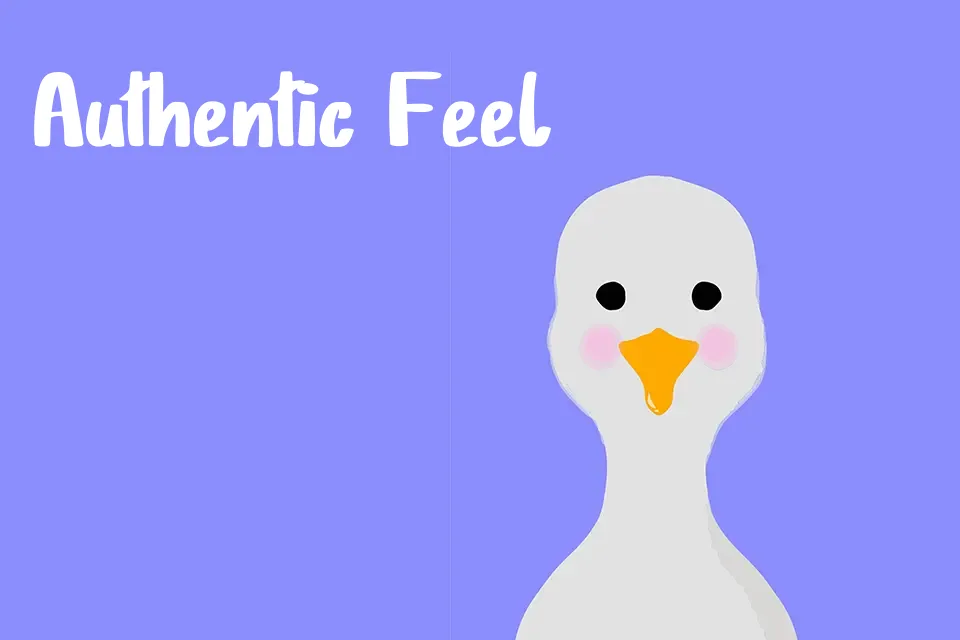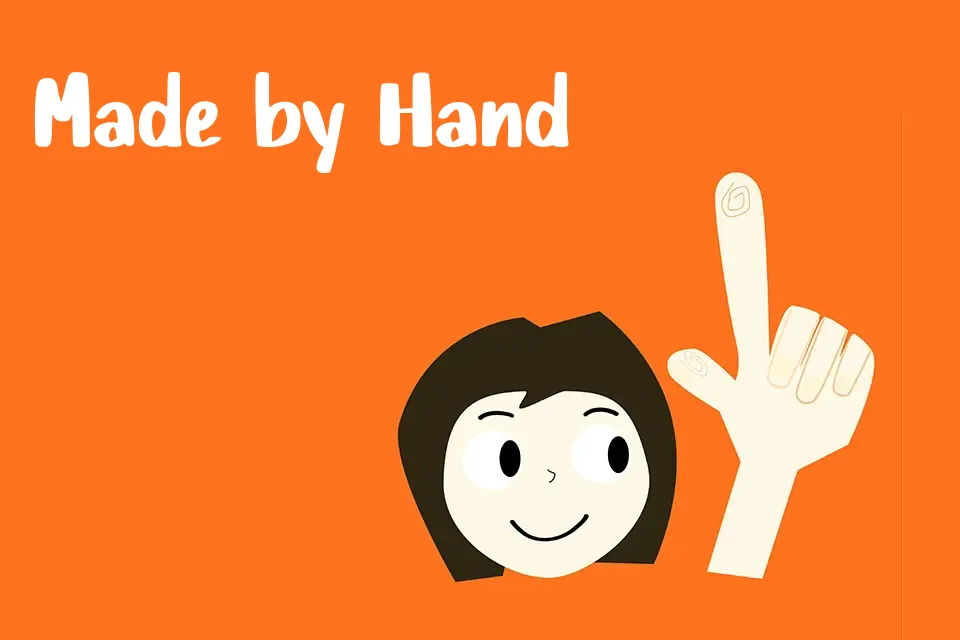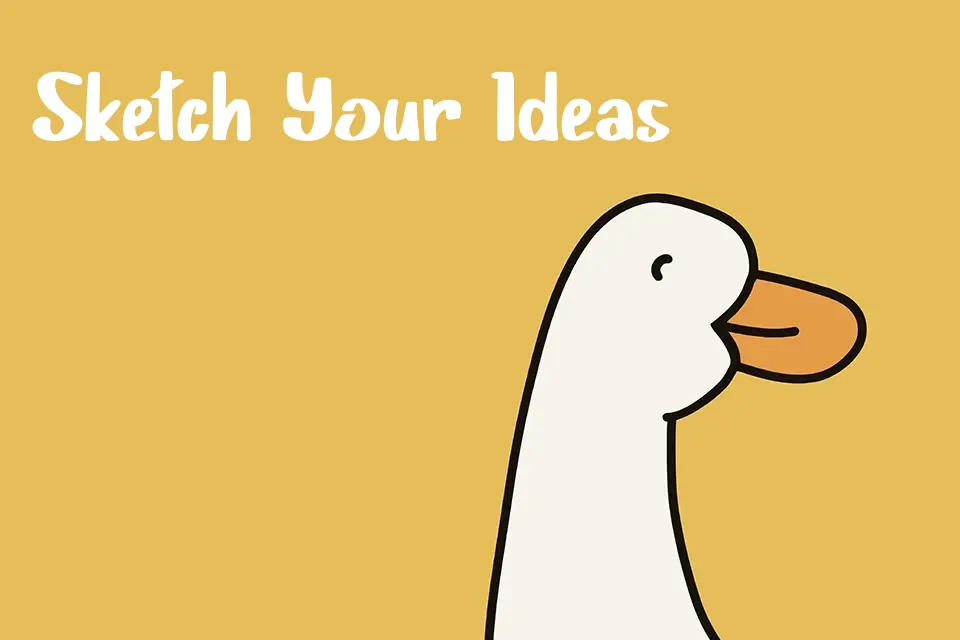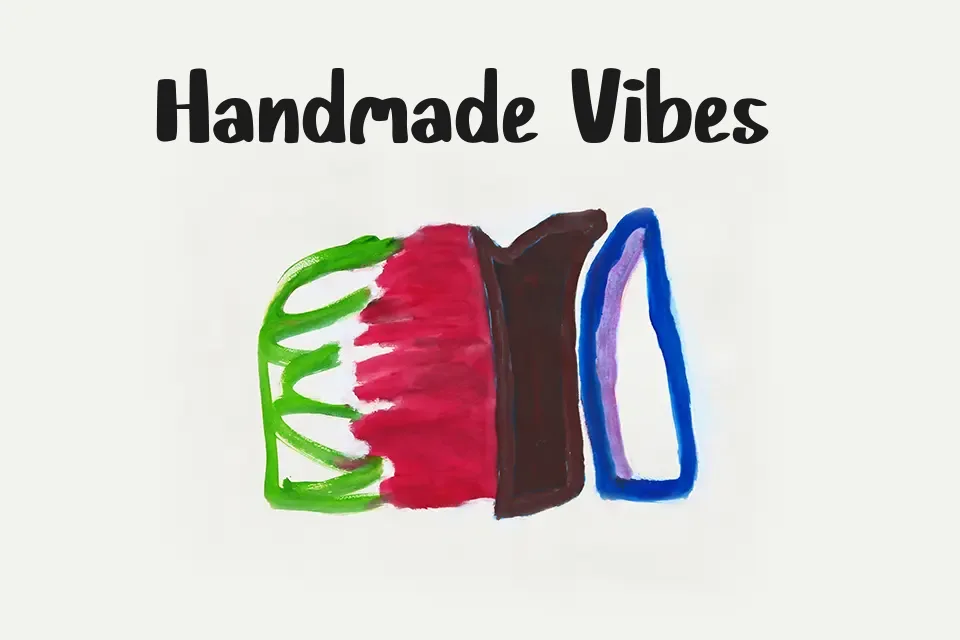
Baby Panda Font
Designed by Tigadestd
The letterforms in Baby Panda are thick, loosely rounded, and drawn with an almost doodled quality — the kind of strokes that feel hand-crafted rather than typeset. It sits firmly in the cartoon/comic register, making it a natural pick for children’s content, playful product labels, and social media headers where mood matters more than precision. Spacing is generous, which adds to its open, approachable feel. That said, the casual construction becomes a liability at small sizes — readability drops off quickly in body copy or captions. It’s not a font that scales well into professional or corporate contexts, and anyone needing multilingual extended character sets may find coverage limited. When it lands, it lands hard: bold titles on a kids’ birthday flyer or a YouTube thumbnail for family content genuinely benefit from its unguarded, fun energy.
Best For:- Children’s book covers and activity sheet headers
– YouTube thumbnail titles and social media graphics
– Party invitation display text
– Kids’ product packaging accents
Not Ideal For:- Body text or long-form paragraph content
– Corporate reports and formal business materials
– Small-size UI labels or captions
– Projects requiring extended multilingual character support
Perfect for holiday, kids, and packaging, with a cute and cartoon style.